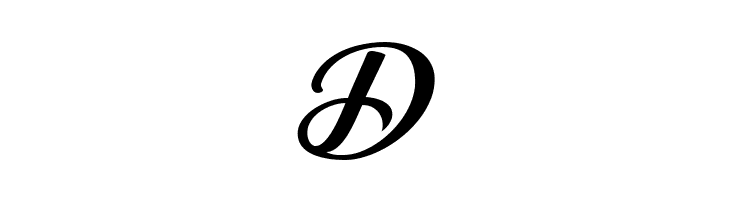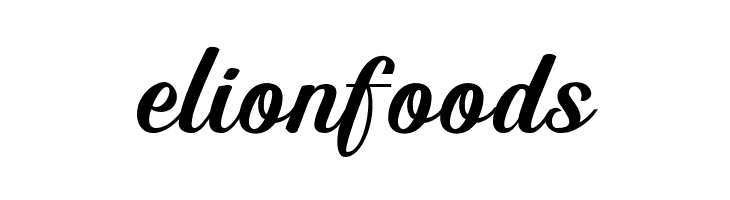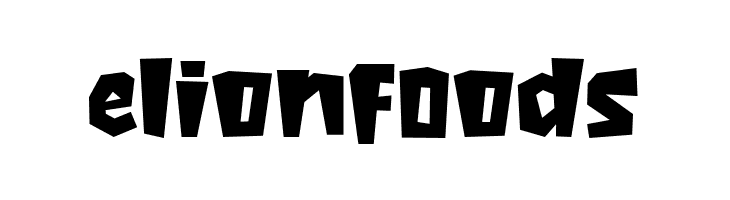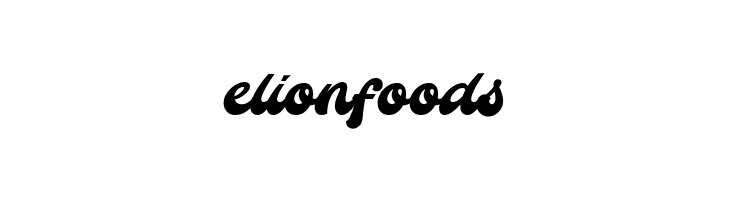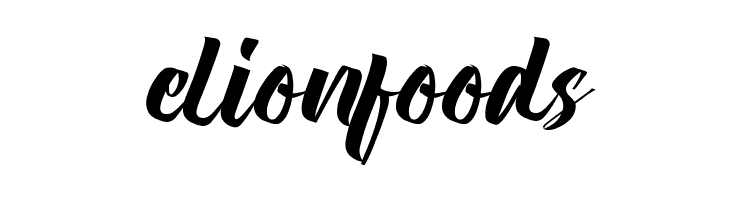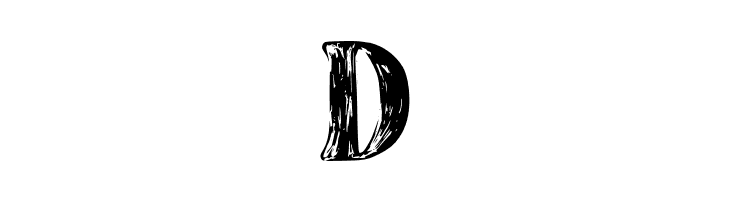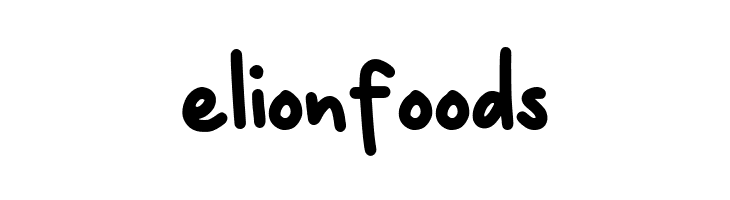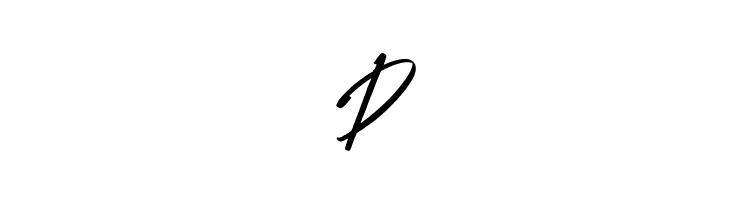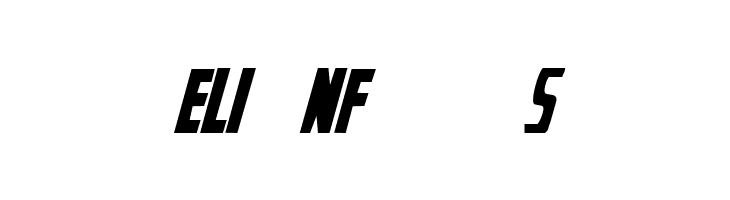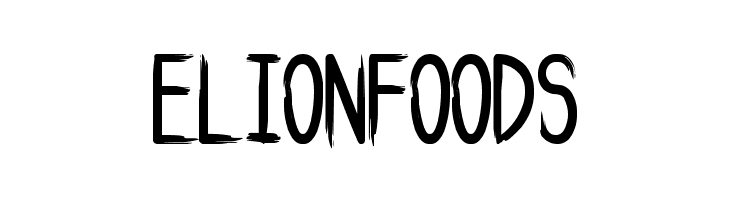
A playful and elegant script font with fluid, connected letterforms.
A dynamic, brush-style script font with bold, expressive strokes.
A bold, geometric font with sharp angles and a futuristic style.
A bold, playful font with rounded, curly elements and a whimsical flair.
A bold, dynamic script font with sweeping strokes and a handcrafted feel.
A bold, brushstroke-style font with a textured, hand-painted appearance.
A futuristic, angular font with sharp, intersecting lines and a bold, dynamic style.
A geometric, angular font with intersecting lines and a bold, modern style.